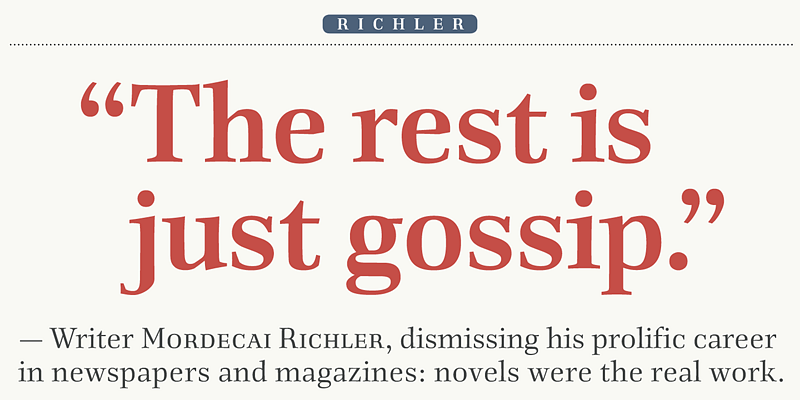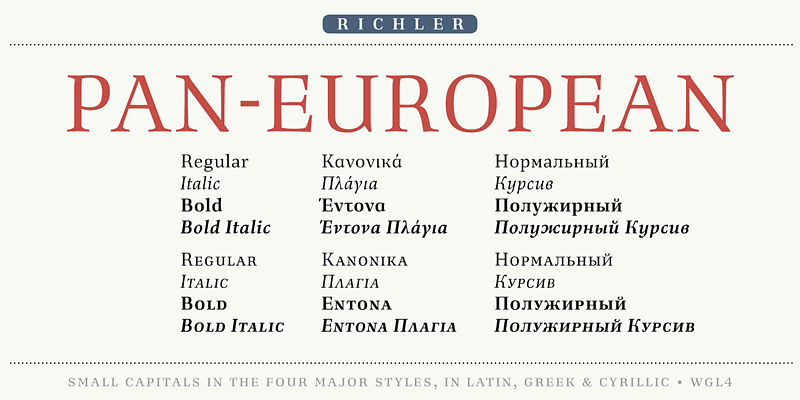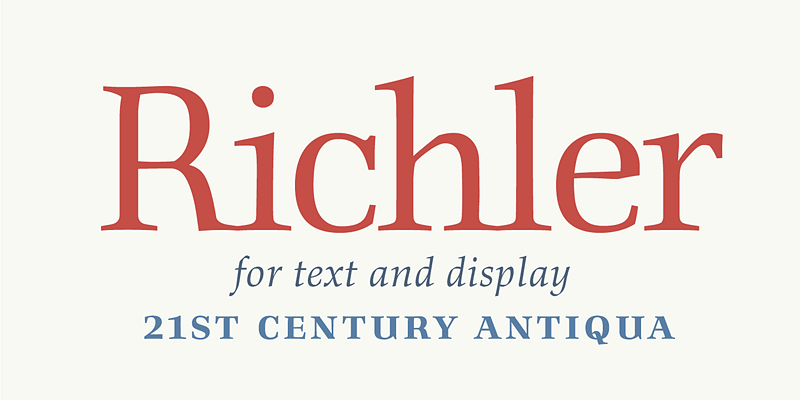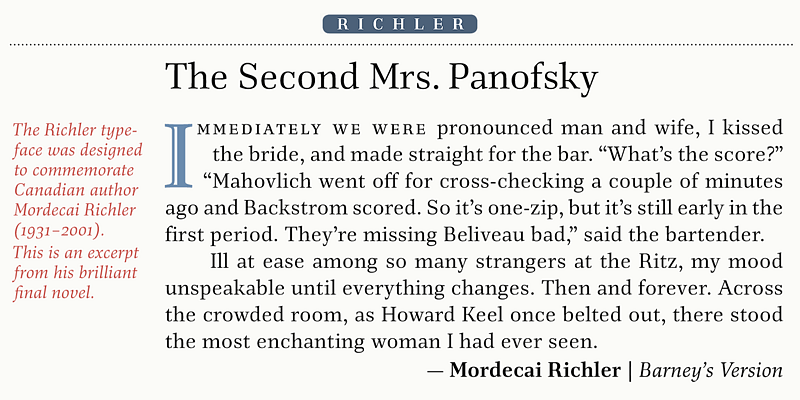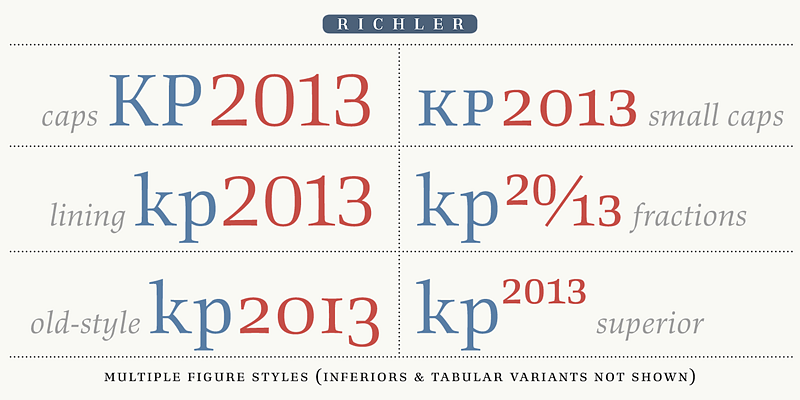
Commissioned in memory of author Mordecai Richler, this typeface takes its cue from the ingenious postmodern tour de force that is his novel Barney’s Version, fusing present-day structure with traditional skill. Its metrical quality (the steady rhythm of vertical strokes) is derived from ‘technical’ sans serifs such as DIN, producing an even measure unusual in a serifed type, facilitating legibility down to the smallest sizes.
These are Nick Shinn’s designs, firmly rooted in the best of the European and North American typographic tradition as it continually evolves. They are solid in text, providing all the bells and whistles of expert typography, and smart in display, with an impeccable attention to detail.